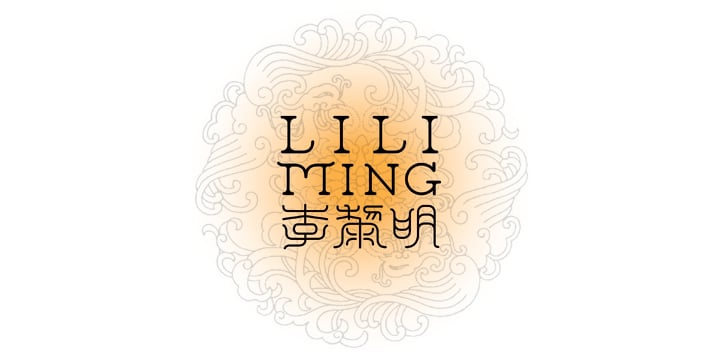
Liliming Font is perfect for Caribbean lifestyle branding, tropical vacation marketing, relaxed beach resort communications, laid-back island culture promotions, casual social gathering invitations, carefree summer campaign graphics, easygoing community events, leisurely entertainment materials, chill music festival promotions, and unhurried wellness retreat messaging. Its relaxed character makes it ideal for projects requiring casual ease and stress-free visual appeal that celebrates the art of taking life slowly.
What makes Liliming Font exciting is its authentic capture of Caribbean "liming" culture through letterforms that embody the relaxed philosophy and unhurried lifestyle of island living. The font features flowing, easygoing curves with laid-back proportions that convey the stress-free atmosphere of casual socializing while maintaining excellent readability for leisurely communications. Its liming character transforms ordinary text into expressions of carefree enjoyment that inspire viewers to slow down and appreciate life's simple pleasures.
The Liliming Font family includes Regular, Bold, Light, Chill, Relaxed, Easygoing, and Casual variations. Each style preserves the font's liming essence while offering different levels of relaxed intensity and laid-back weight for creating authentic Caribbean graphics. The comprehensive character set includes tropical symbols, relaxed ornaments, casual decorations, and easygoing glyphs essential for genuine Caribbean and leisure lifestyle typography projects.
Caribbean businesses and relaxation brands consistently choose Liliming Font Free Download for projects demanding authentic liming typography solutions. The font's laid-back character instantly establishes Caribbean credibility while ensuring clear communication across leisure marketing channels. Its versatility spans from subtle relaxed touches to bold statements that celebrate the wisdom of slowing down and the essential importance of casual socializing in maintaining mental health and community connections.
Whether you're developing Caribbean brand identities, creating relaxation marketing materials, or designing leisurely communications, Liliming Font provides the perfect combination of liming authenticity and contemporary functionality. The font's casually crafted letterforms ensure genuine Caribbean character while maintaining excellent performance across various leisure applications and relaxed business communications.
The Caribbean heritage of Liliming Font makes it exceptional for creating peaceful connections with audiences who value relaxation and stress-free living. Its liming precision and easygoing appeal work seamlessly across traditional Caribbean materials and modern digital wellness platforms. The font performs leisurely in both large-scale tropical displays and intimate relaxed communications.
Embrace the liming lifestyle with Liliming Font and discover how authentic Caribbean typography can enhance your relaxation projects with genuine laid-back appeal and casual sophistication. This remarkable typeface combines Caribbean tradition with contemporary functionality, making it indispensable for leisure brands celebrating the art of taking time and the transformative power of stress-free living.